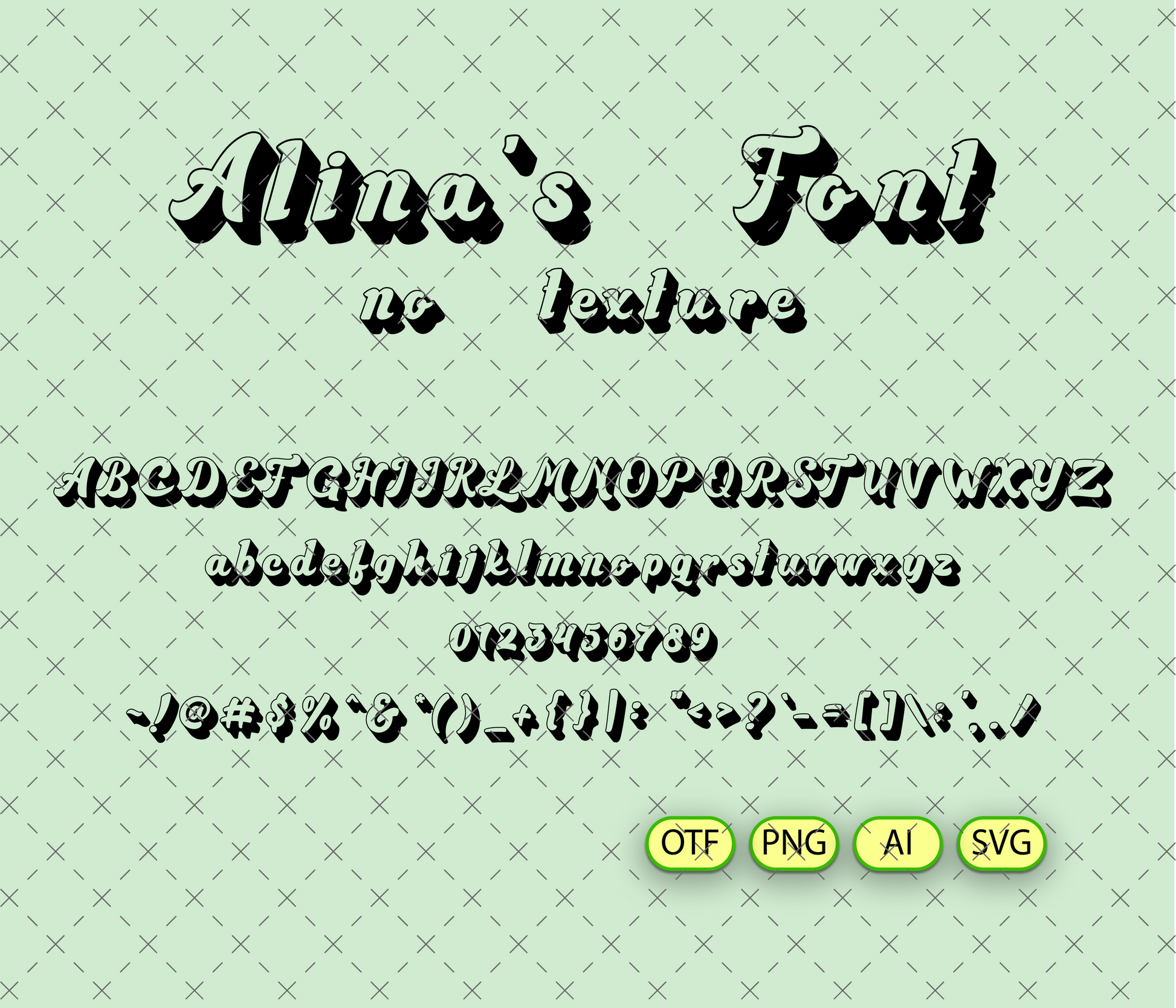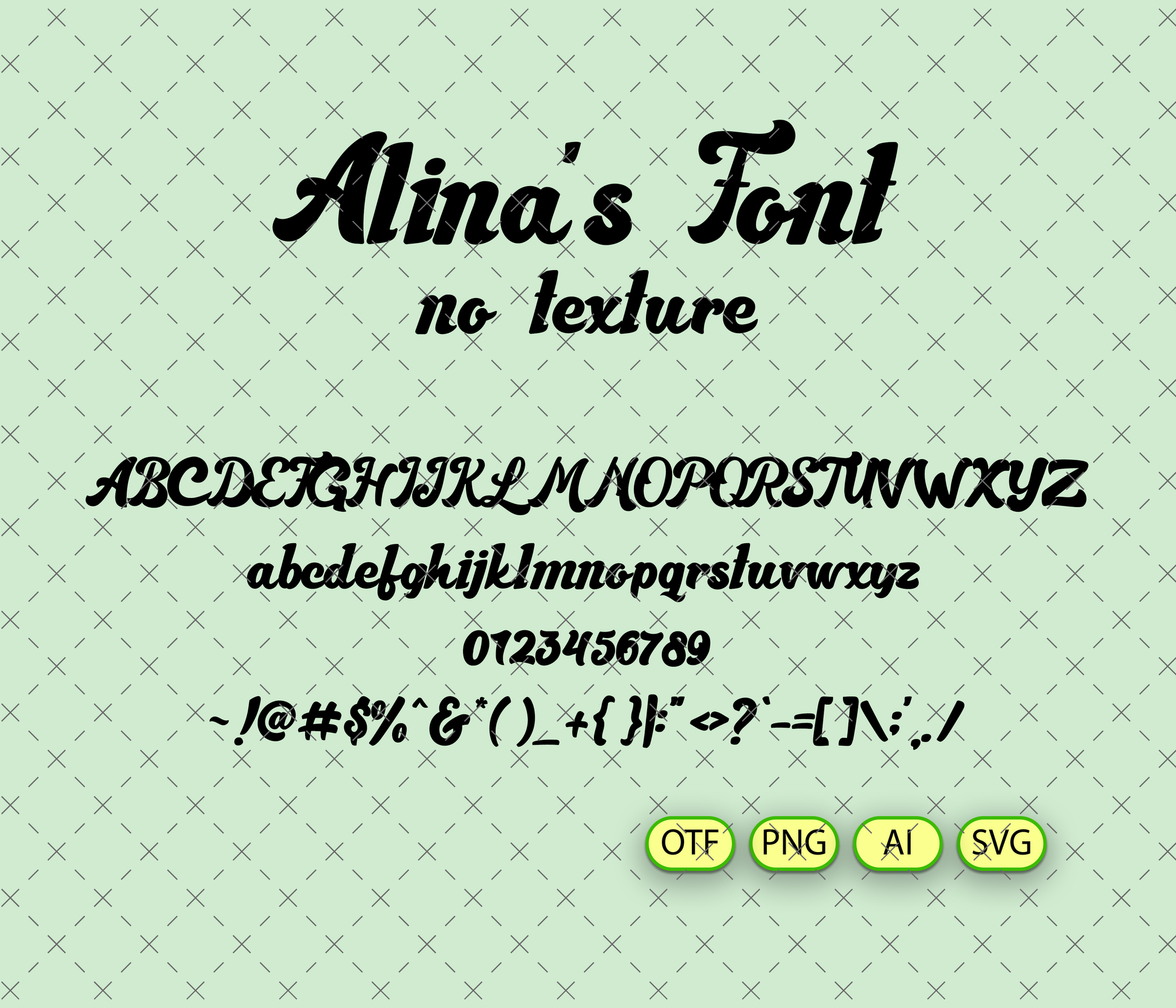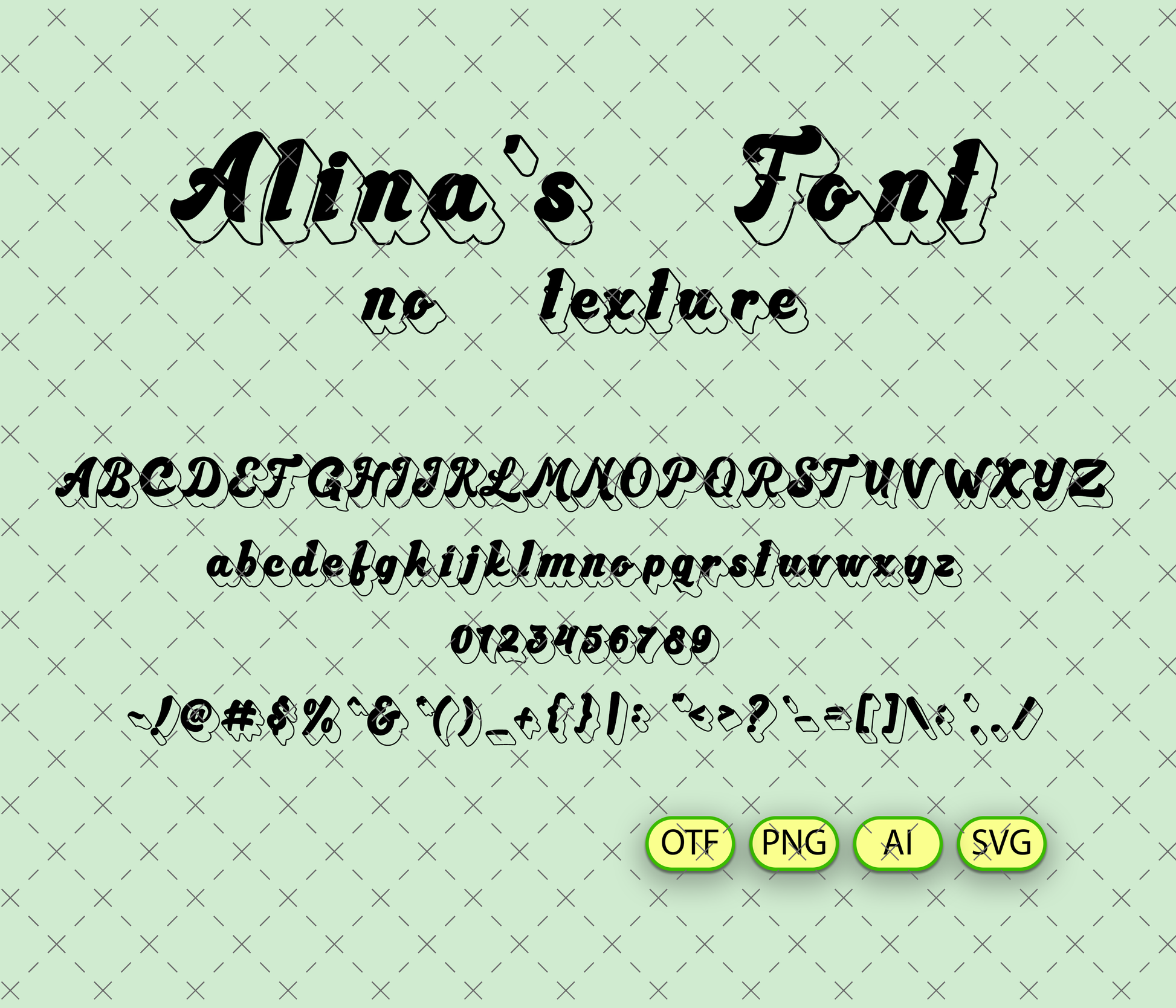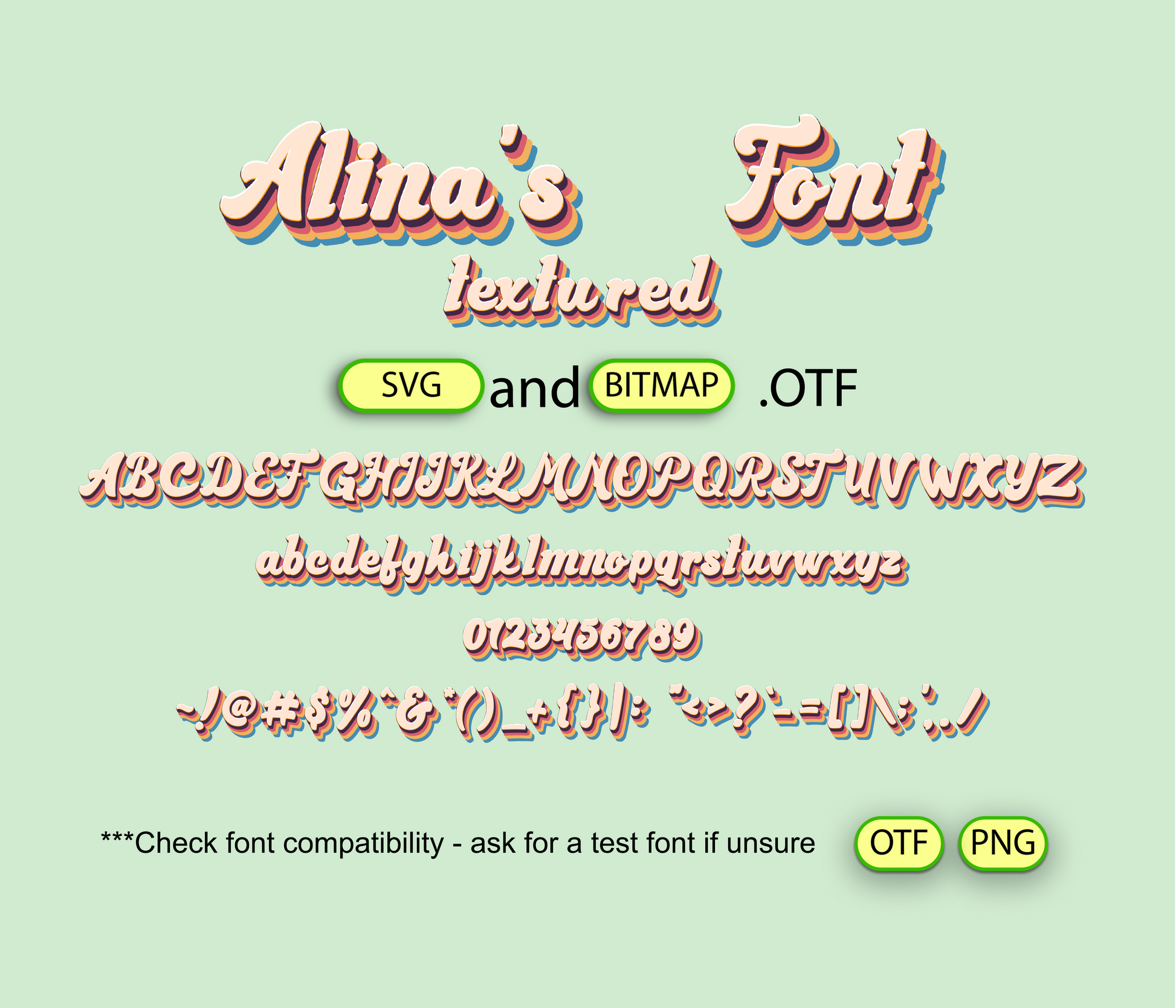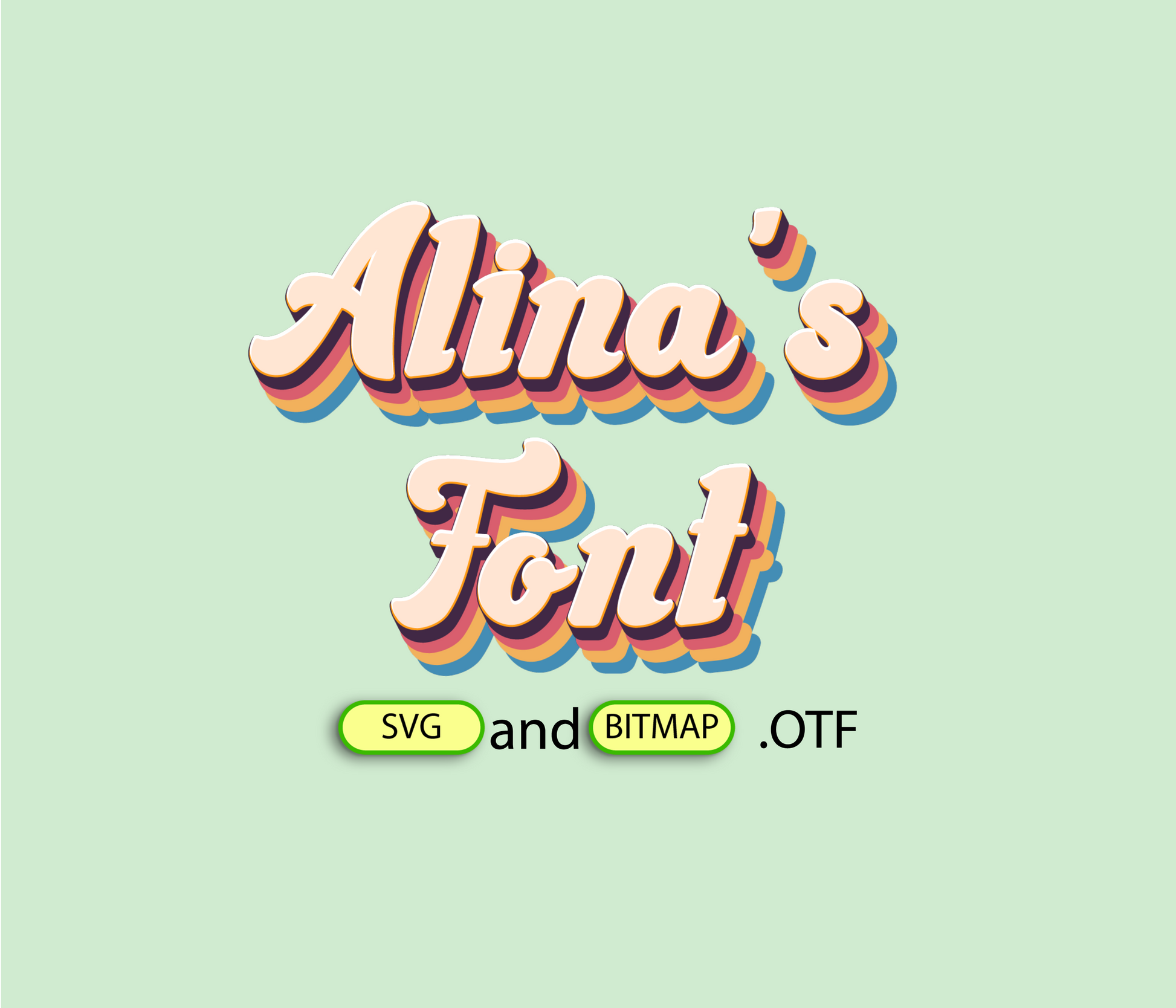
Sunset Strip Font Textured
Step into the sun-drenched swagger of golden hour boulevards and sizzling seventies street culture with our Sunset Strip Font Textured, capturing the essence of warm amber glows and legendary west coast groove narratives. Perfect for retro lifestyle enthusiasts, vintage poster designers, nostalgia media producers, and groovy design specialists, this font brings the bold, sun-kissed character of iconic seventies boulevard storytelling to your projects. Create head-turning invitations, commercial goods, or web content with the warm electric presence of golden hour street culture narratives.
Warm Typography for Boulevard Design & Seventies Street Culture Projects
Our Sunset Strip Font Textured features bold, sun-kissed letterforms with shimmering golden hour textures reflecting the world of legendary west coast boulevards and iconic seventies street culture wonder.
Our font pays tribute to the world of golden boulevard wonder and generation-spanning seventies street culture groove, empowering your projects with its bold and sun-kissed character. Whether crafting celebration materials, designing retro products, or adding a golden hour touch to personal projects, this font communicates the warm essence of sunset boulevard magic. Ready to bathe your creations in golden seventies glow? This font is your key to attention-grabbing, impactful design.